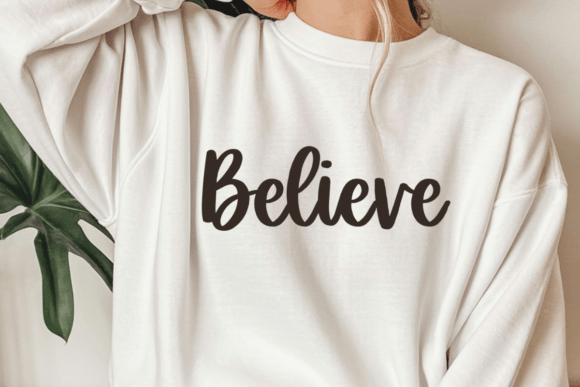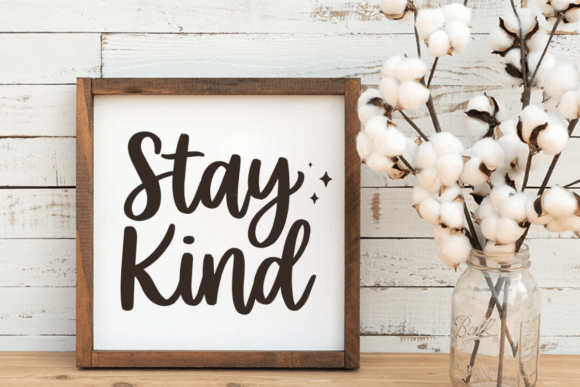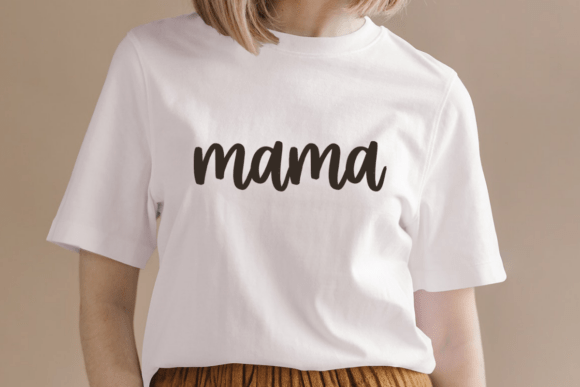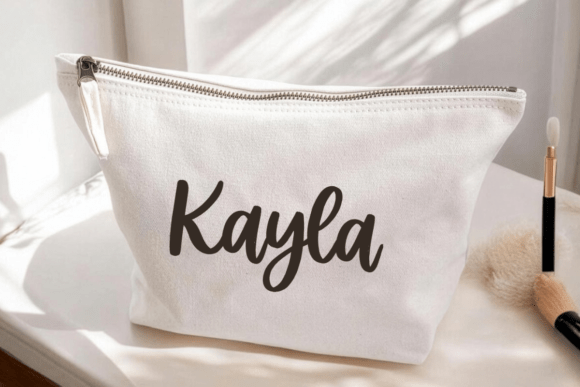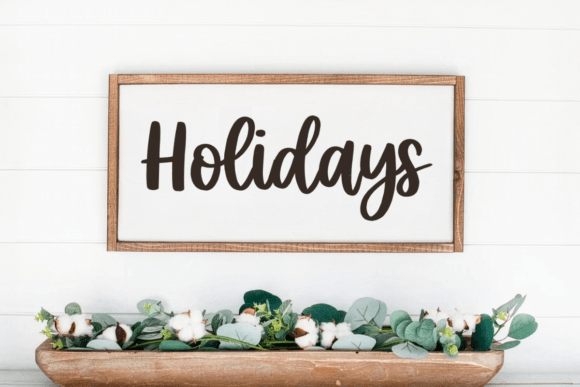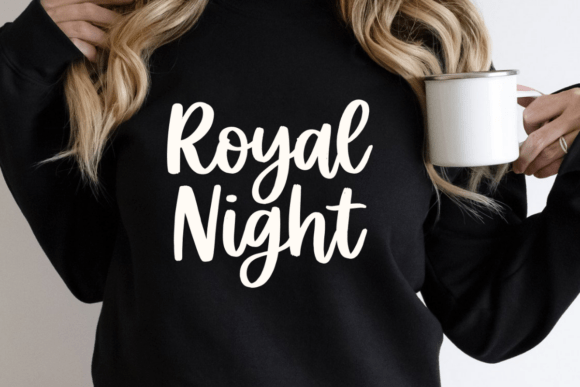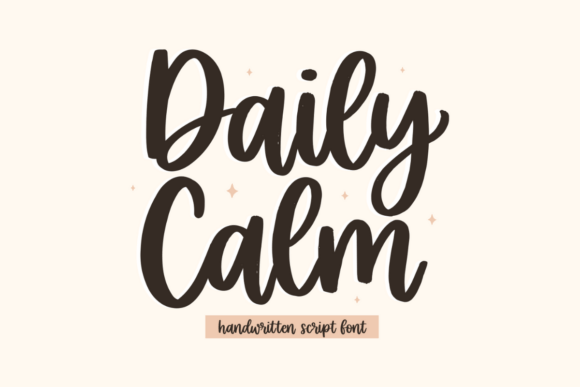
Discover the Charm of Daily Calm Font: Elevate Your Designs with a Personal Touch
In the world of typography, few fonts manage to capture the essence of relaxation and cheerfulness as effortlessly as the Daily Calm font. This beautifully flowing handwritten script font is designed to bring an authentic, relaxed, and cheerful energy to your designs, making it the perfect choice for projects that require a personal, sincere touch. Whether you’re a designer, craftsperson, or simply someone who appreciates the art of typography, Daily Calm is sure to become an indispensable asset in your creative toolkit.
The Unique Characteristics of Daily Calm Font
One of the standout features of the Daily Calm font is its thick, brush-like strokes and smooth connections, which give it a contemporary, high-impact presence while maintaining a cozy, inviting aesthetic. This unique blend of modernity and warmth makes Daily Calm incredibly versatile, suitable for a wide range of applications, from branding and packaging to social media and stationery.
The font’s bold weight ensures excellent visibility at a glance, allowing it to convey a confident yet approachable message. This makes Daily Calm an excellent choice for lifestyle blogs, personalized stationery, and any project where a genuine, happy vibe is key. The font’s readability and charm make it perfect for designs that need to communicate a sense of warmth and friendliness.
Perfect for Cozy and Artisanal Projects
Daily Calm font is particularly well-suited for designs that aim to evoke a sense of coziness and artisanal charm. If you’re looking to brand a cozy cafe, craft inspirational social media quotes, design vibrant merchandise, or create friendly, eye-catching labels or packaging for artisan goods, Daily Calm is an excellent choice. The font’s authentic, relaxed energy will help you connect with your audience on a more personal level, making your designs feel more approachable and inviting.
Applications of Daily Calm Font
The versatility of Daily Calm font means it can be used in a variety of contexts, including:
- Branding: Establish a warm and welcoming identity for your business with Daily Calm. It’s perfect for cafes, bakeries, boutiques, and any other enterprise that wants to convey a sense of friendliness and approachability.
- Social Media: Create inspirational quotes, announcements, and posts that stand out with Daily Calm’s unique charm. The font’s readability and aesthetic appeal make it perfect for engaging your audience on platforms like Instagram, Facebook, and Twitter.
- Merchandise: From t-shirts and mugs to tote bags and notebooks, Daily Calm font can add a personal touch to your merchandise designs, making them more appealing and distinctive.
- Packaging: For artisan goods, handmade products, and small-batch items, Daily Calm can help create labels and packaging that reflect the care and quality of your products.
- Stationery: Add a touch of warmth and personality to your stationery, including greeting cards, journals, and personal letters, with Daily Calm’s cheerful and inviting aesthetic.
Why Choose Daily Calm Font?
Choosing Daily Calm font for your design projects comes with several advantages:
- Unique Aesthetic: Daily Calm offers a distinctive look that sets it apart from more traditional fonts, allowing your designs to stand out.
- Versatility: Its adaptability across various mediums and applications makes it a valuable addition to your font library.
- Emotional Connection: The font’s warm and cheerful energy can help create an emotional connection with your audience, enhancing the impact of your designs.
- Readability: Despite its artistic nature, Daily Calm maintains excellent readability, ensuring your message is conveyed clearly and effectively.
| Font Name | Daily Calm Font |
| Author | Jozoor |
Daily Calm font is more than just a typeface; it’s a tool for designers and crafters to imbue their projects with a sense of warmth, sincerity, and cheerfulness. Its unique blend of contemporary flair and cozy aesthetic makes it an invaluable asset for anyone looking to add a personal touch to their designs. Whether you’re working on branding, social media content, merchandise, packaging, or stationery, Daily Calm font is sure to elevate your projects and connect with your audience on a more intimate level. Discover the charm of Daily Calm and let it transform your designs with its effortlessly cool and inviting vibe.